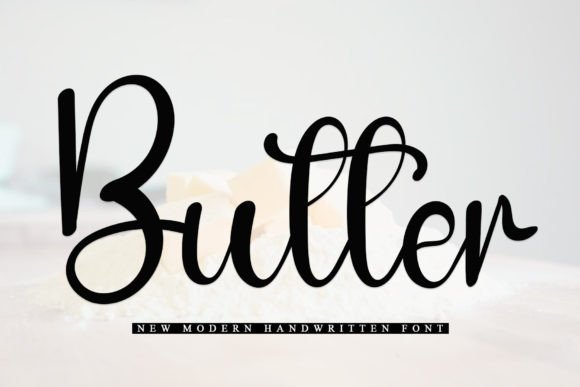
Unleash Your Creativity with the Butter Font
Have you ever stared at a blank page, a blank canvas, or even a blank Instagram post, desperately searching for the perfect font to bring your creative idea to life? We’ve all been there! But what if we told you that there’s a font that can turn your blank slate into a masterpiece? Introducing the Butter Font, a delightful handwritten font that combines elegance with a playful touch.
This beautiful font is perfect for designers, bloggers, and creatives who want to add a personal touch to their projects. Whether you’re creating Instagram-worthy graphics, crafting calligraphy scripts for DIY projects, or simply want to add a touch of whimsy to your designs, the Butter Font is a valuable asset in your creative toolkit. With its versatility and charm, this font is sure to elevate your designs and make them truly special.
Butter Font Key Features
- Unique Characteristics: Elegant, rounded terminals and subtle ball terminals for a soft, approachable feel
- Font Weight: Multiple weights available, including light, regular, medium, bold, and extra bold
- Font Width: Variable font width, allowing for flexibility in design and layout
Butter Font Review
First off, I want to say that I’m a big fan of the Butter Font’s aesthetic ✨. The rounded, playful design is perfect for creating a friendly and approachable feel in your projects. The font is also highly customizable, allowing you to tweak the spacing and line height to suit your needs.
The Butter Font is also surprisingly versatile, working well in a variety of contexts from branding and advertising to digital products and print materials ✨. The font’s large x-height makes it easy to read, even at smaller sizes.
However, there are a few limitations to consider ⚠️. The font’s rounded design can sometimes make it difficult to read at very small sizes, and the font’s lack of italic and bold weights may limit its use in certain situations ⚠️. Additionally, the font’s design may not be suitable for formal or professional applications.
Overall, I think the Butter Font is a great choice for projects that require a playful and approachable feel ✨. While it may have some limitations, its customizability and versatility make it a solid choice for designers looking for a fun and engaging font.
Pros:
- Playful and approachable design
- Surprisingly versatile
Cons:
- Difficult to read at very small sizes
- Lack of italic and bold weights
- Not suitable for formal or professional applications
Butter Font is ideal for creating playful and whimsical designs, such as:
- Food and drink branding